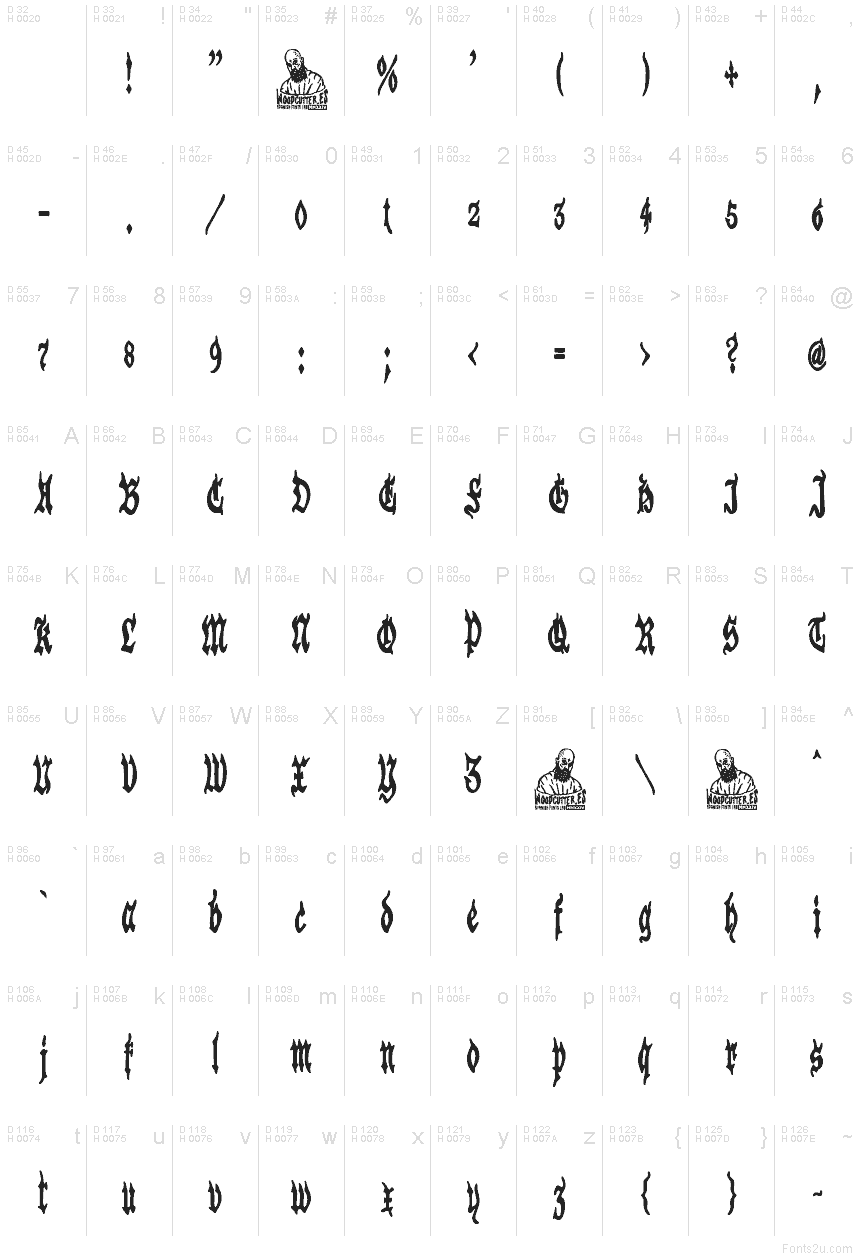
Austrian Hotel
Austrian Hotel font by Woodcutter is a gothic-inspired piece with a modern twist that fits perfectly into different projects. The decorative free typeface follows condensed width and showcases unique characteristics from start to finish. This original font takes inspiration from historical details like those of the Victorian era, and seamlessly translates them into designs.
Premade uses for this piece include movie titles, game cover design, posters, or art covers. But the uses are not limited to branding purposes including product packaging or event invitation cards such as Halloween parties. The font can also be used for apparel items to imprint on t-shirts or incorporated into book covers and magazines where applicable.